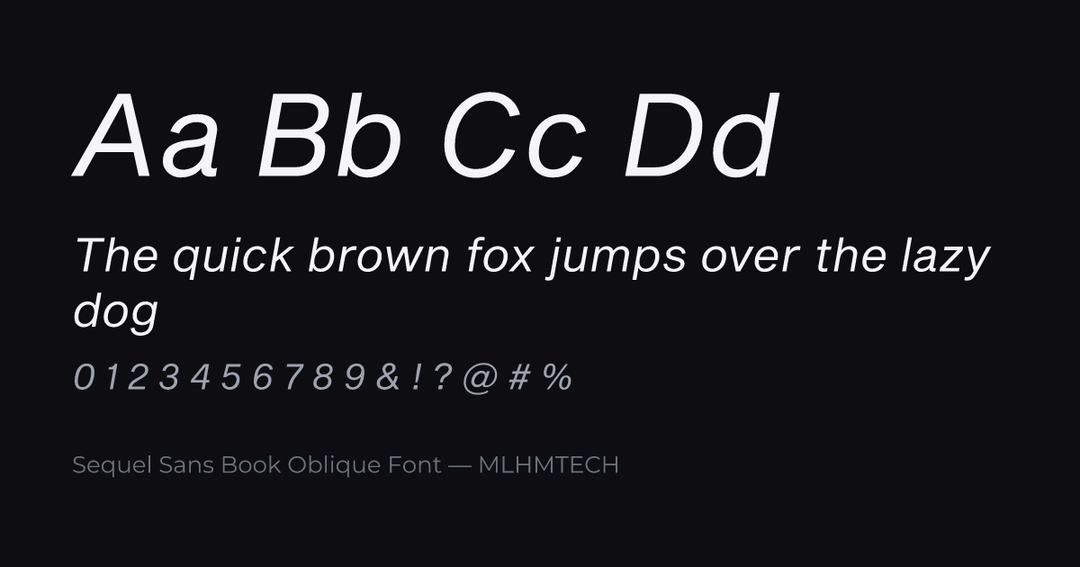
Sequel Sans Book Oblique Font
Sequel Sans Book Oblique is a refined sans-serif typeface with a subtle slant, ideal for adding elegance to body text and headings.
Sequel Sans Book Oblique is part of the Sequel Sans family, known for its geometric yet humanist design. The oblique style adds a dynamic touch while maintaining readability, making it suitable for a wide range of projects from corporate branding to creative layouts.
This font is perfect for body text, captions, and UI elements where a clean and modern look is desired. Its balanced proportions and subtle slant give a sense of movement without compromising legibility.
Whether you're designing a website, a magazine, or a logo, Sequel Sans Book Oblique offers versatility and sophistication. Pair it with a strong serif for contrast or use it alone for a minimalist aesthetic.